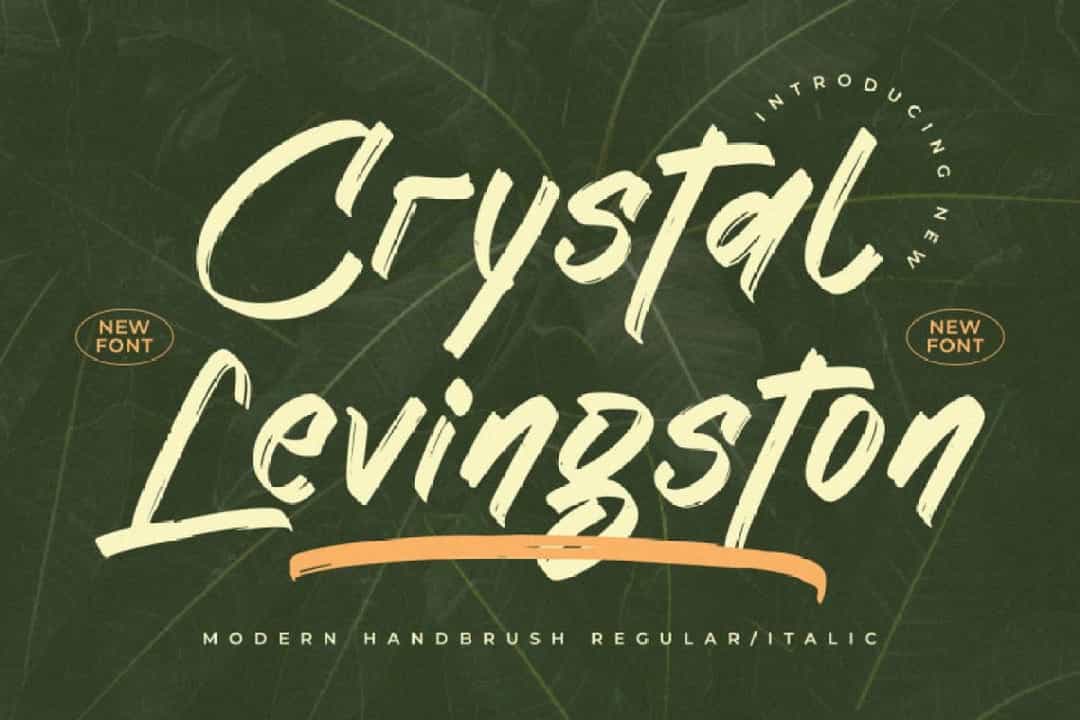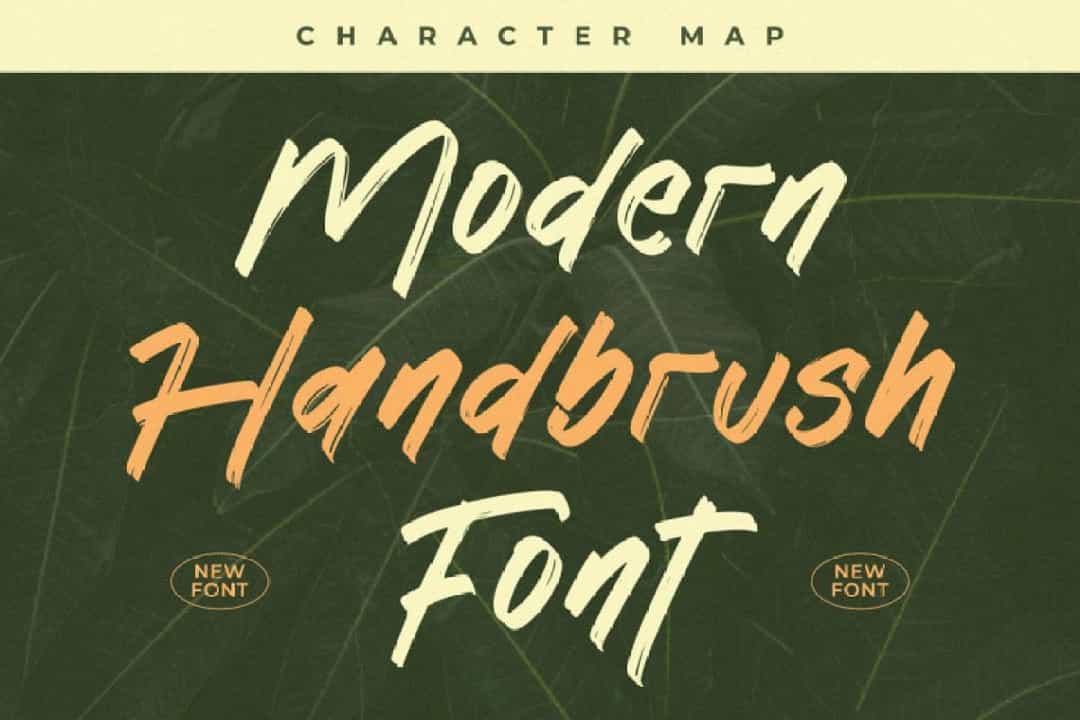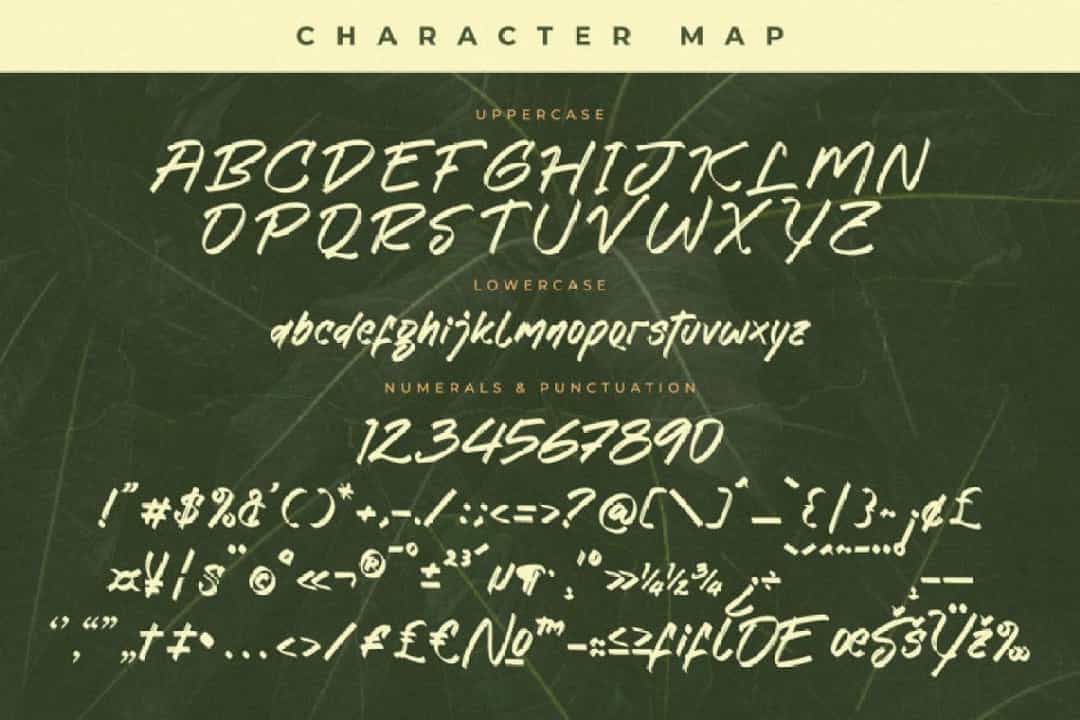
Crystal Levingston is an elegant and chic handwritten brush script font, ideal for wedding invites, thank-you cards, greeting cards and logo designs that require a more individualized touch. This font works beautifully on greeting cards or logo designs where it adds personal style.